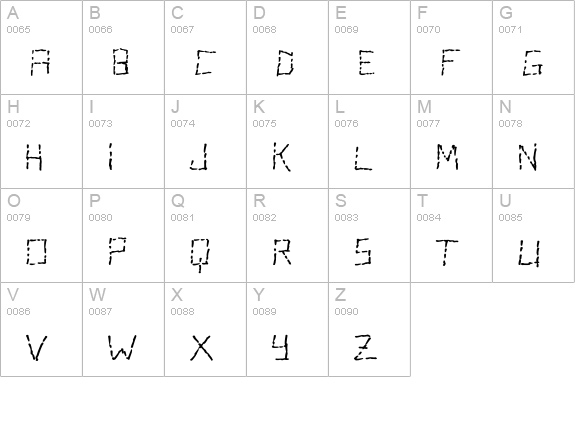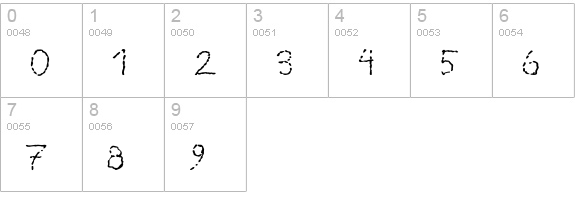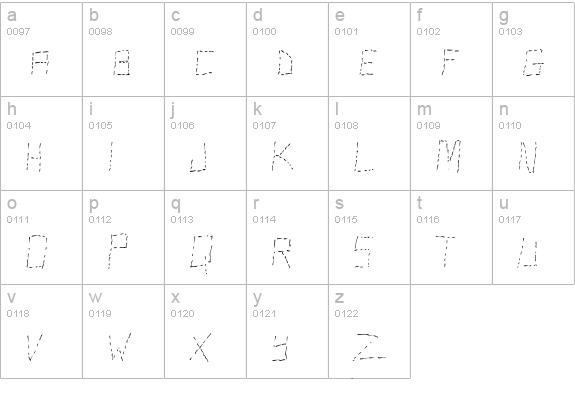
Stutter Font Details
Stutter font is a unique and eye-catching typeface that adds a touch of creativity and playfulness to any design. With its irregular and stuttering letterforms, this font is sure to make a statement and draw attention. Perfect for headlines, posters, logos, and more, Stutter font is a versatile choice for all kinds of projects. Best of all, Stutter font is available for free download at FontsMarket.com. Simply visit the website to add this distinctive font to your collection and start using it in your designs today. Don't miss out on this amazing opportunity to enhance your projects with the captivating Stutter font - download it now and let your creativity shine!